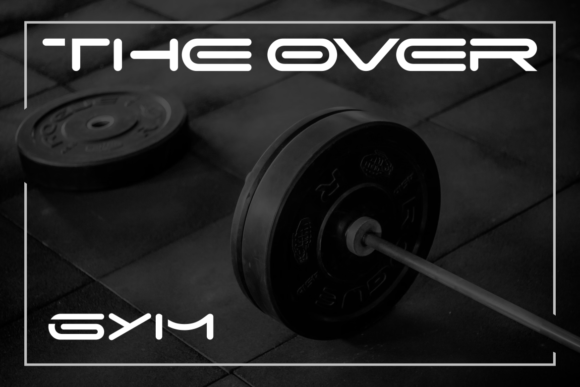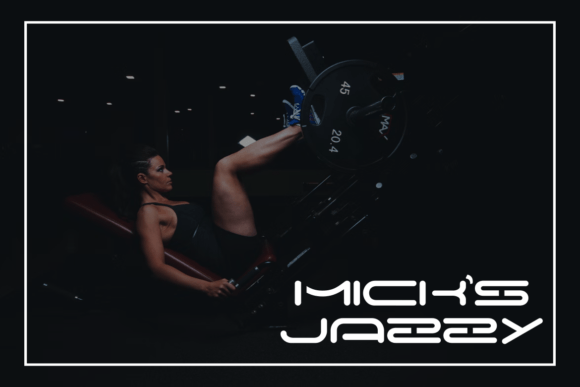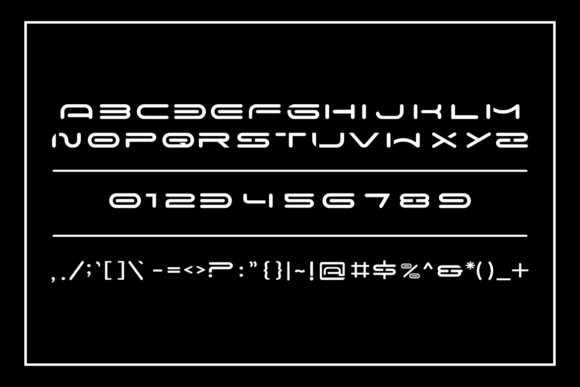
Crainte Font: Elevate Your Designs with a Modern and Stylish Display Font
In the world of typography, fonts play a crucial role in conveying messages, evoking emotions, and setting the tone for a brand or project. For designers and crafters looking to make a statement, Crainte Font is an excellent choice. This modern and stylish display font is designed to add a touch of sophistication and elegance to any project. In this article, we’ll explore the features and benefits of Crainte Font, and how it can elevate your designs to the next level.
What is Crainte Font?
Crainte Font is a contemporary display font that exudes confidence and style. Its sleek lines, precise curves, and balanced proportions make it perfect for headlines, titles, and short texts. This font is designed to make a statement, and its modern aesthetic is sure to grab attention. Whether you’re working on a branding project, a website, or a craft project, Crainte Font is an excellent choice.
Key Features of Crainte Font
- Modern and Stylish: Crainte Font boasts a sleek and contemporary design that’s perfect for modern brands and projects.
- Highly Legible: The font’s clear lines and balanced proportions ensure excellent readability, even at smaller sizes.
- Versatile: Crainte Font can be used for a wide range of projects, from branding and advertising to web design and crafting.
- Easy to Pair: This font pairs well with a variety of other fonts, making it easy to create harmonious and visually appealing typography.
Benefits of Using Crainte Font
So, why should you choose Crainte Font for your next project? Here are just a few benefits:
- Adds Sophistication: Crainte Font’s modern and stylish design adds a touch of sophistication to any project.
- Grabs Attention: The font’s bold and confident aesthetic is sure to grab attention and make a statement.
- Enhances Brand Identity: Crainte Font can help establish a strong brand identity and reinforce your brand’s message.
How to Use Crainte Font in Your Projects
Using Crainte Font in your projects is easy. Here are a few tips:
- Headlines and Titles: Use Crainte Font for headlines and titles to add a touch of sophistication and style.
- Branding and Advertising: This font is perfect for branding and advertising projects, where a bold and confident aesthetic is essential.
- Web Design: Crainte Font can be used for web design projects, such as website headers, titles, and buttons.
- Crafting and DIY: This font is also suitable for crafting and DIY projects, such as making signs, cards, and other handmade items.
In conclusion, Crainte Font is a modern and stylish display font that’s perfect for designers and crafters looking to add a touch of sophistication and elegance to their projects. With its sleek lines, precise curves, and balanced proportions, this font is sure to make a statement. Whether you’re working on a branding project, a website, or a craft project, Crainte Font is an excellent choice. So, add it confidently to your projects and be amazed by the outcome!